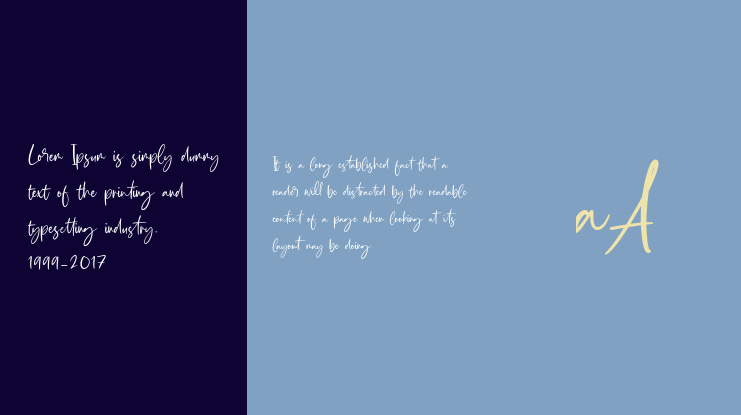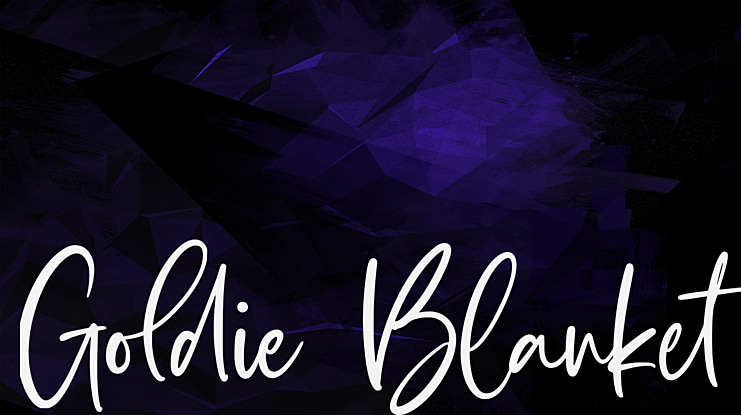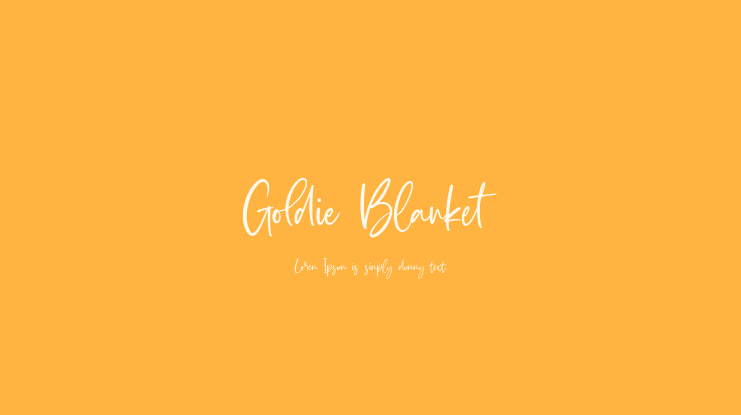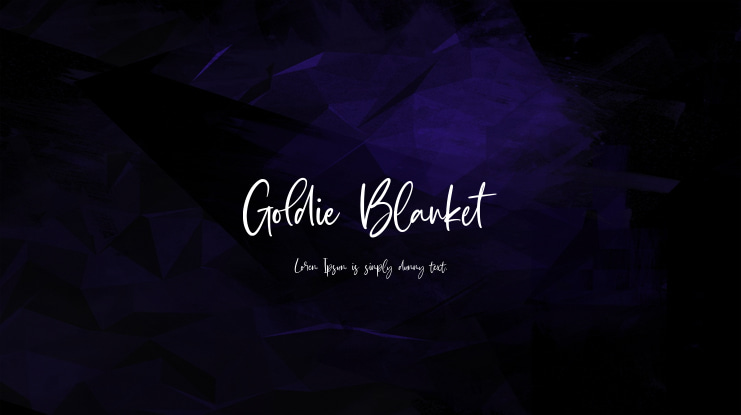
Goldie Blanket Font
Letterative Studio
Introducing by Letterative Studio : Goldie Blanket Font
Goldie Blanket is a Modern Calligraphy Font
Goldie Blanket is perfect for product packaging, branding project, megazine, social media, wedding, or just used to express words above the background.
Goldie Blanket also multilingual support